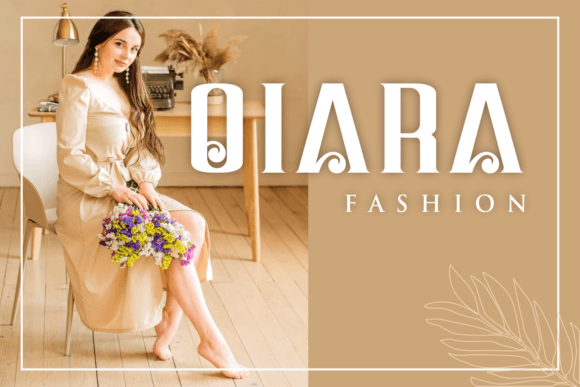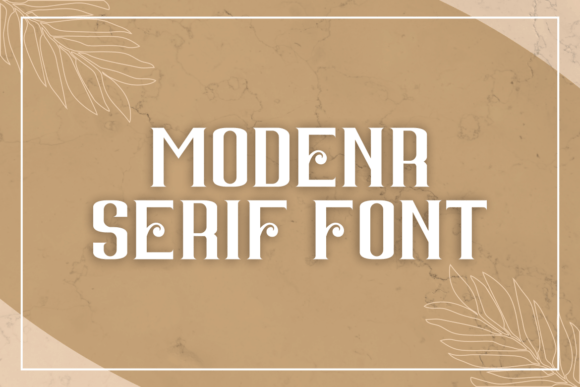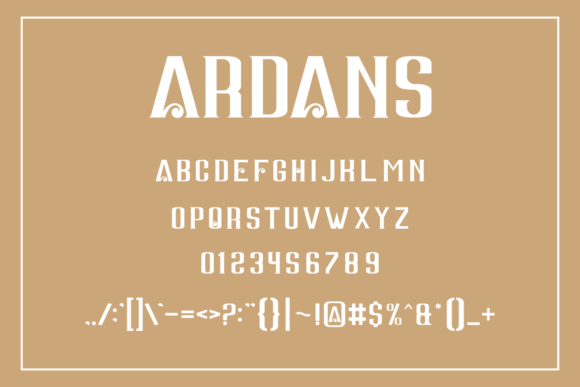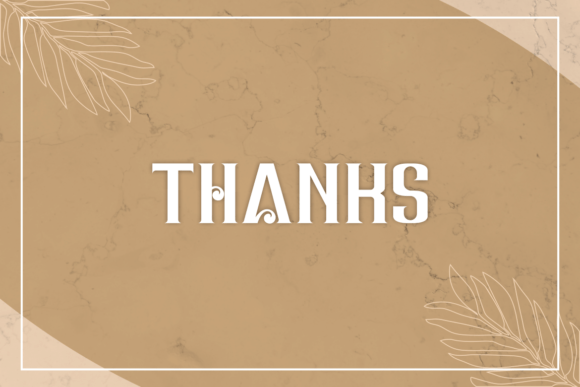
Introducing Ardans Font: The Ultimate Serif Font for Bold Branding
Are you looking for a font that can elevate your brand’s visual identity and make it stand out from the crowd? Look no further than Ardans Font, a bold and authentic serif font designed to help you create stunning branding projects. In this article, we’ll dive into the features and benefits of Ardans Font, and explore how it can be used to take your designs to the next level.
What is Ardans Font?
Ardans Font is a carefully crafted serif font that exudes confidence and sophistication. Its bold and authentic design makes it perfect for creating eye-catching logos, t-shirt prints, esports designs, and a wide range of other branding projects. The font’s classic serif style ensures that it remains legible and readable, even at smaller sizes, making it a versatile choice for designers and crafters.
Key Features of Ardans Font
- Bold and Authentic Design: Ardans Font boasts a bold and authentic design that commands attention and makes a lasting impression.
- Suitable for Various Projects: From logos and t-shirt prints to esports designs and more, Ardans Font is the perfect choice for any branding project.
- Legible and Readable: The font’s classic serif style ensures that it remains legible and readable, even at smaller sizes.
- Wide Range of Contexts: Ardans Font looks outstanding in a wide range of contexts, making it a versatile choice for designers and crafters.
Benefits of Using Ardans Font
So why choose Ardans Font for your branding projects? Here are just a few benefits of using this exceptional serif font:
- Instant Recognition: Ardans Font’s bold and authentic design ensures that your brand stands out and gets noticed.
- Professional Look and Feel: The font’s classic serif style gives your branding projects a professional look and feel that will help you build trust and credibility with your audience.
- Versatility: Ardans Font can be used for a wide range of branding projects, from logos and t-shirt prints to esports designs and more.
- Easy to Read: The font’s legible and readable design ensures that your message gets across clearly and effectively.
How to Use Ardans Font
Using Ardans Font is easy! Here are a few tips to get you started:
- Pair it with Other Fonts: Ardans Font pairs well with other fonts, so feel free to experiment with different combinations to find the perfect look for your branding project.
- Use it for Headings and Titles: Ardans Font is perfect for headings and titles, where its bold and authentic design can really make an impact.
- Experiment with Colors: Ardans Font looks great in a wide range of colors, so don’t be afraid to experiment and find the perfect color scheme for your branding project.
In conclusion, Ardans Font is a bold and authentic serif font that’s perfect for any branding project. Its classic design, legibility, and versatility make it a must-have for designers and crafters looking to create stunning visual identities. Whether you’re working on a logo, t-shirt print, esports design, or any other branding project, Ardans Font is the perfect choice. So why wait? Download Ardans Font today and take your designs to the next level!
- What is Ardans Font? Ardans Font is a bold and authentic serif font designed for branding projects.
- What is Ardans Font suitable for? Ardans Font is suitable for a wide range of branding projects, including logos, t-shirt prints, esports designs, and more.
- Is Ardans Font easy to read? Yes, Ardans Font is designed to be legible and readable, even at smaller sizes.